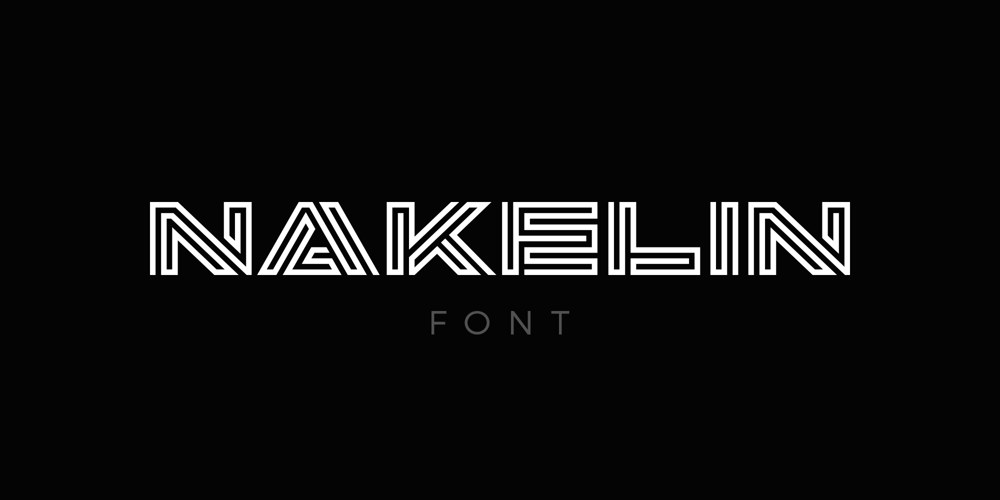
Nakelin Font Family was designed by Dmytro Poliakh and published by Sentavio. Nakelin contains 1 styles and family package options. NAKELIN is monogram font linear style can be used as logo design and branding, titles & headers, posters & banners in such areas as fashion, high-tech, internet & computers, business innovations etc.